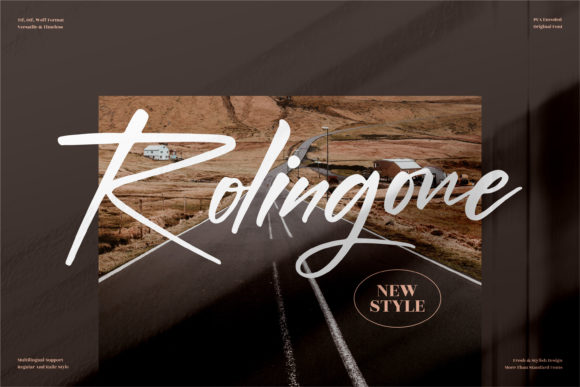
Embark on a typographic journey with Rolingone, a captivating script font family that adds a touch of elegance and charm to your creative endeavors. Designed by Perspectype, this exquisite font captures the essence of handwritten artistry, making it an ideal choice for crafting logos, branding, and quotes that demand attention.
Rolingone's inherent beauty lies in its intricate details, where each letter dances across the page with a unique and mesmerizing flair. Its flowing lines and graceful curves evoke a sense of artistry and sophistication, transforming your designs into visual masterpieces. Whether you're a seasoned designer or just starting, Rolingone empowers you to create designs that resonate with your audience and leave a lasting impression.
Unleash the boundless versatility of Rolingone as it seamlessly adapts to a myriad of design projects. From delicate wedding invitations to bold and stylish posters, this versatile font family rises to the occasion, delivering exceptional results every time. Let Rolingone's timeless charm enhance your website content, social media posts, and marketing materials, captivating your audience with its effortless elegance.
Experience the magic of Rolingone and witness your designs come alive with personality and charm. Join countless designers who have embraced the artistry of Rolingone to create unforgettable designs that stand the test of time.